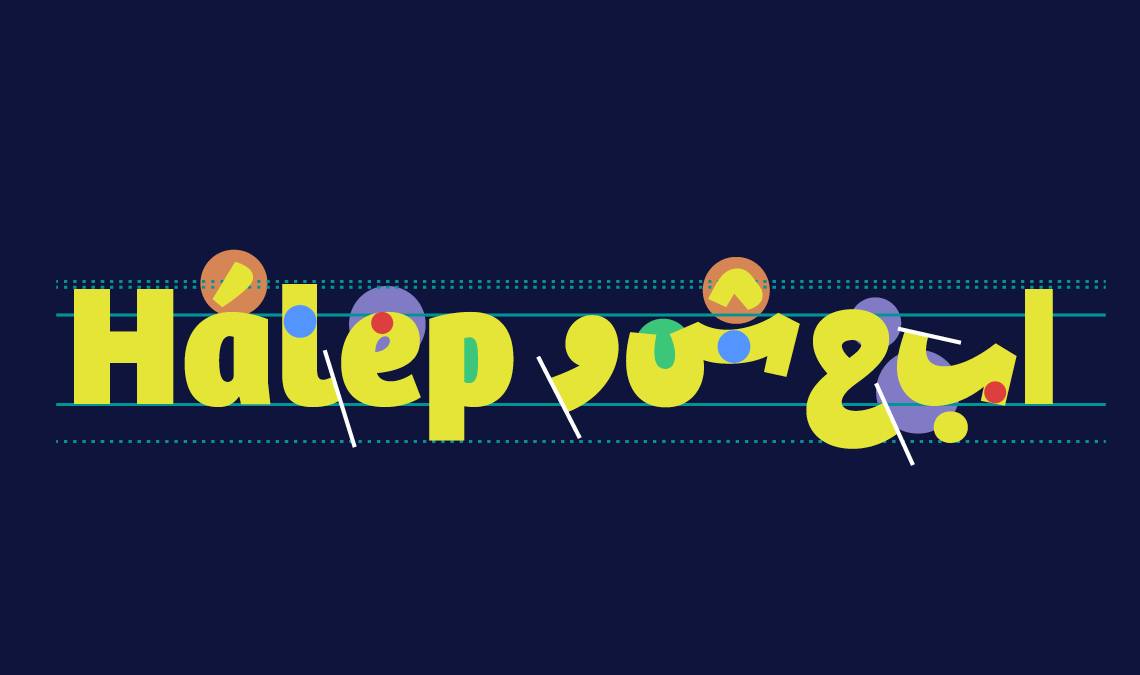
Douglas Arellanes: I’m here with typographer and designer Azza Alameddine, and we’re talking about Arabic typography, which I have to admit is a complete blank in my knowledge. And Azza, you’ve designed several Arabic fonts. How does that work? How do you adapt an existing font, an existing Latin font, for Arabic? That sounds like just a massive task.
Azza Alameddine: Usually the client comes with a Latin font and they need its Arabic equivalent. So this is really your source. And this is the thing you should look at. This is the only source you have. So actually, the first step would be to really look at the features of the Latin typeface. You can write keywords describing the typeface, and you need to find a way to translate those keywords into Arabic and this translation doesn’t necessarily mean that the keywords for the Arabic would be the same.
But I think in my opinion, this is really a good starting point to really look at the Latin and see its essence. And it’s very, very important. Once you look at the Latin and study the letters to know that actually what you need to translate into Arabic is not just the translation of the stylistic features.
I think it’s very important to translate as well the function of the typeface. So for example, if the Latin one is a text typeface, then the Arabic should also serve as a text typeface. If the Latin is display, the Arabic should also be a display. So this is a very important point.
So when you’re working with, for example, the stresses of the letters, how does that work? Because it seems like in Arabic script, there’s quite a bit of of stress between the different characters, right?
In Arabic each script has their own contrast, and thick and thins are really different in terms of positioning depending on the script, depending on the pen when it rotates, when it turns. So these are things you need to really, like, learn. There aren’t rules. You need to learn the script and see where thick and thins are, where the stress is in each letter.
So this is something inherent in the script — you cannot change those things. So what I do is actually... these things aren’t translatable. These things are set by the specific script, and therefore you cannot change them. You can change, of course, the contrast; the contrast of the Arabic letter should always match the contrast of the Latin letters in terms of the ratio between thick and thin.
But the positioning of thick and thins in Arabic are set by calligraphy. And like these are a kind of set rule. You cannot, as a designer, change them. You would be really modifying a lot the essence of the script.
Now you’ve worked on several of TypeTogether’s typefaces, including the typeface Bree. How did you actually adapt Bree to Arabic? What was that process like?
So the process is like adapting any other Arabic typeface. Like I said, I look at the Latin. I write the keywords, and then I translate first the function. So, for example, in Bree, Bree was more of a display typeface. Usually users would use it in big sizes. So the Arabic had also to be kind of a display thing.
So this is what I call the function of the typeface. So the function is to work in display. And then I really look at the structure of the Latin letters. So, for example, Bree was what we call an upright italic. So it had this handwritten feel to it. So I had to translate also this function into Arabic.
And once I decide the style of the Arabic typeface, then I start to match it visually. So then I start to match the size between Latin and Arabic, so that there the size is consistent. Then I try, I match the weight, then the contrast, then the features. So it’s really a step by step, I think. First thing function, and then the visual matching.
Do you have a character or a detail or a letter that you like to start with?
Usually I start with five letters in Arabic. One that I think is very important to start with is like it would be the equivalent of an n if you would like in Latin is the beh letter in Arabic. It’s beh, it has a... in its isolated form it looks like a boat, it’s an elongated shape and this letter sets a lot of the proportions for the future letters.
And so I start with this one as an isolated form. And then I start with, of course, the initial, medial, and final form of the beh... So the isolated form sets the proportions and the medial form is very important because it sets the spacing of the typeface, which is very important in Arabic, because in Arabic spacing is within the letter.
So you have to really work on your outlines in order to space. It’s not like in Latin where your spacing is just set in units. And therefore I start with this letter and its four forms, and then the next step would be to do a similar letter that also has a tooth.
So the beh, we call it a tooth letter because it has a small vertical tooth as a medial form. And so I start in the next step to do the seen, which has three teeth. So this is important also after the beh to start with because then you can decide whether you want your typeface to have consistency, where the shape is quite similar. Or do you want really to differentiate these shapes?
So this is a really very, very important point, I think, to know the limits of modifying letters. And of course this is very difficult, I think. But I think also if you ask people, if you go to workshops or if you read articles, sometimes you can also learn a lot about type design in a practical way.
But my first advice is to go more in a theoretical approach, and to learn a bit of the history of the letters.